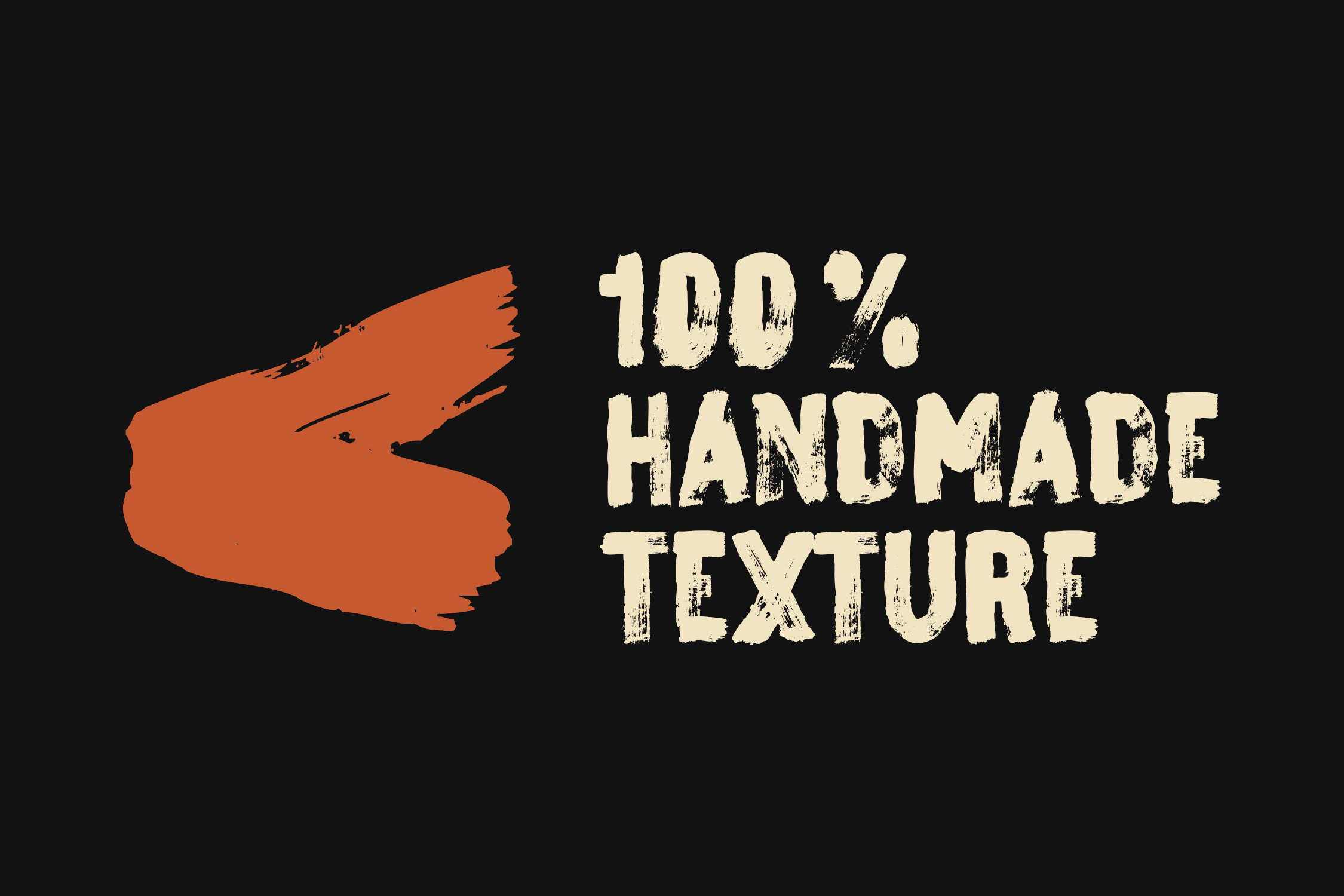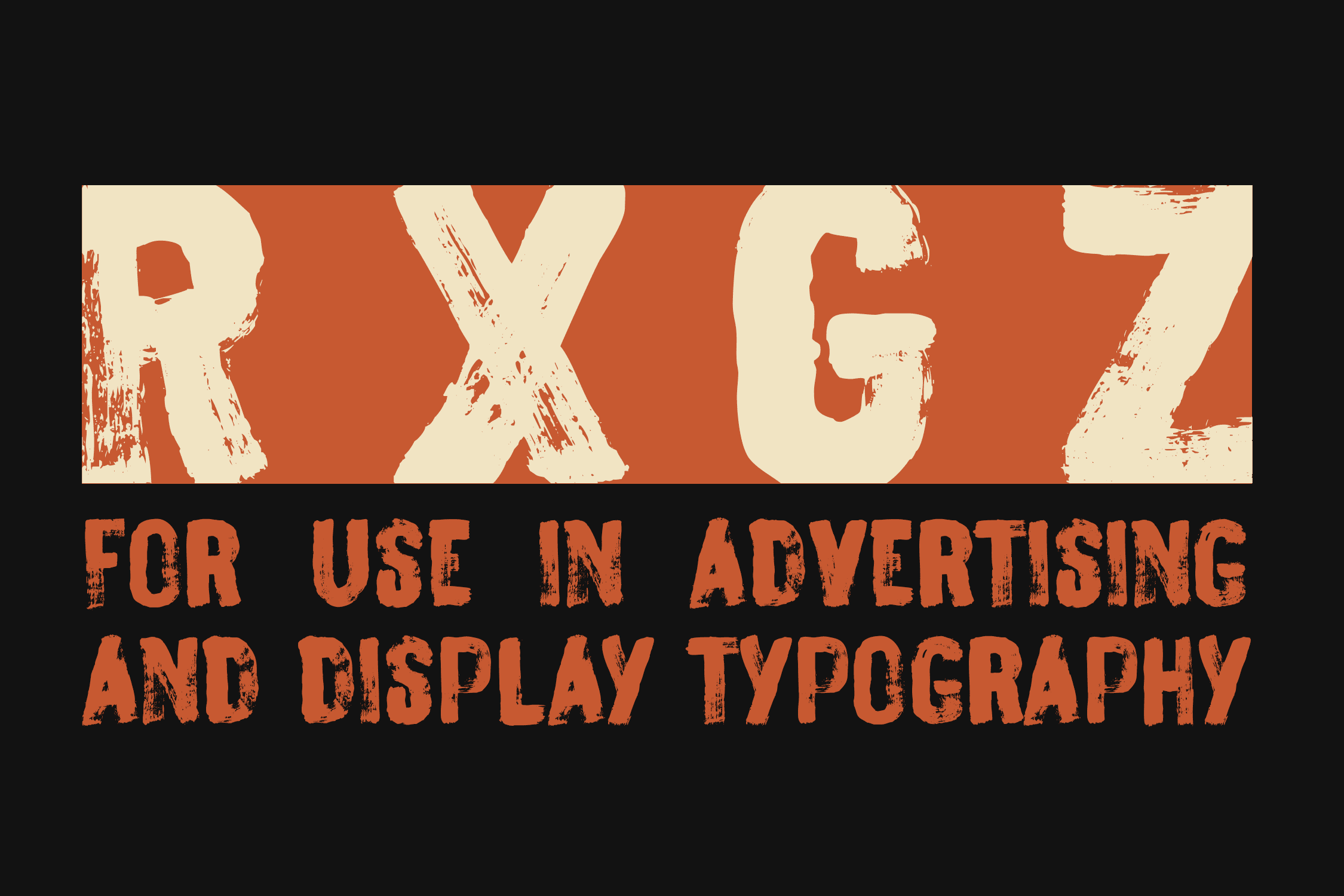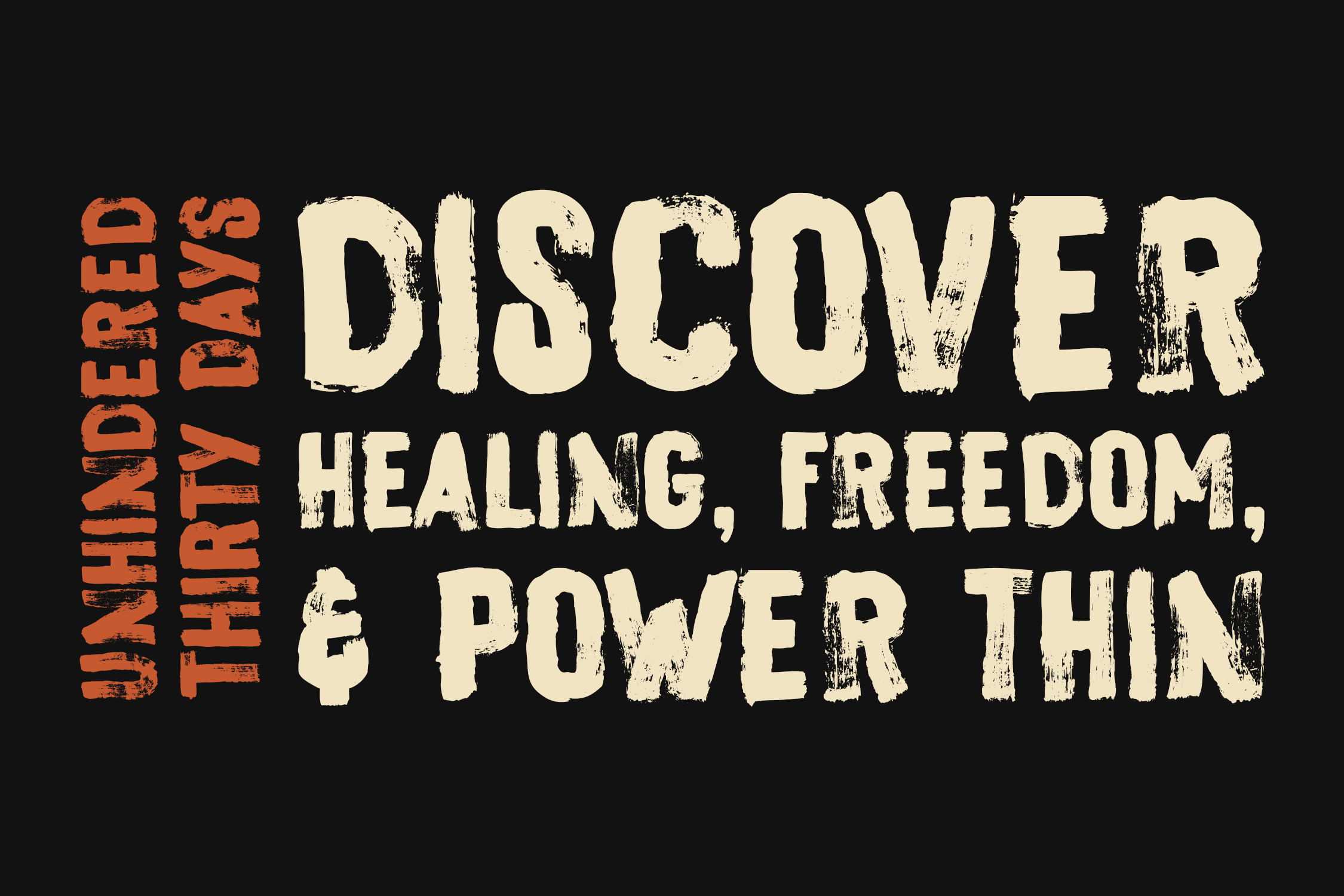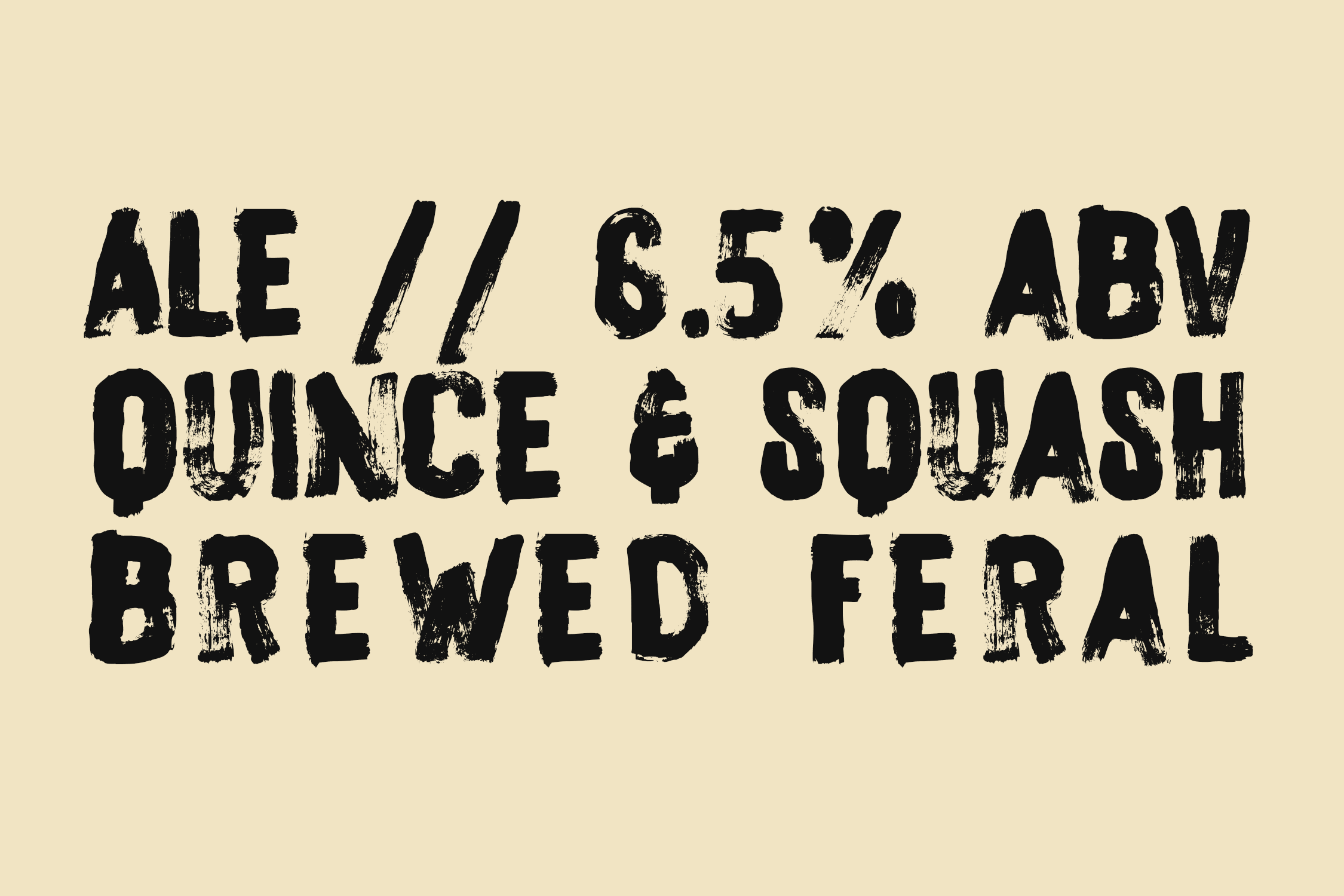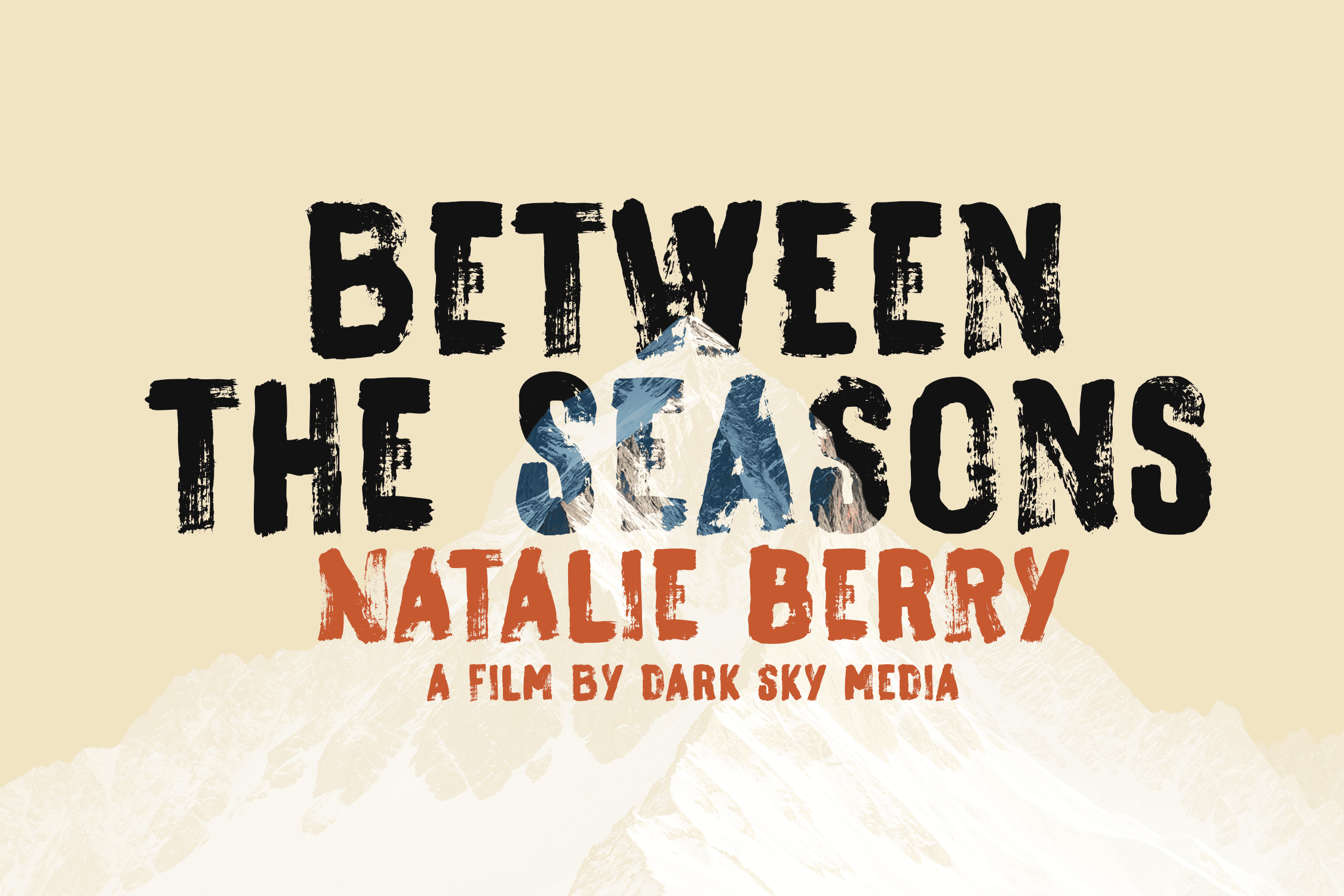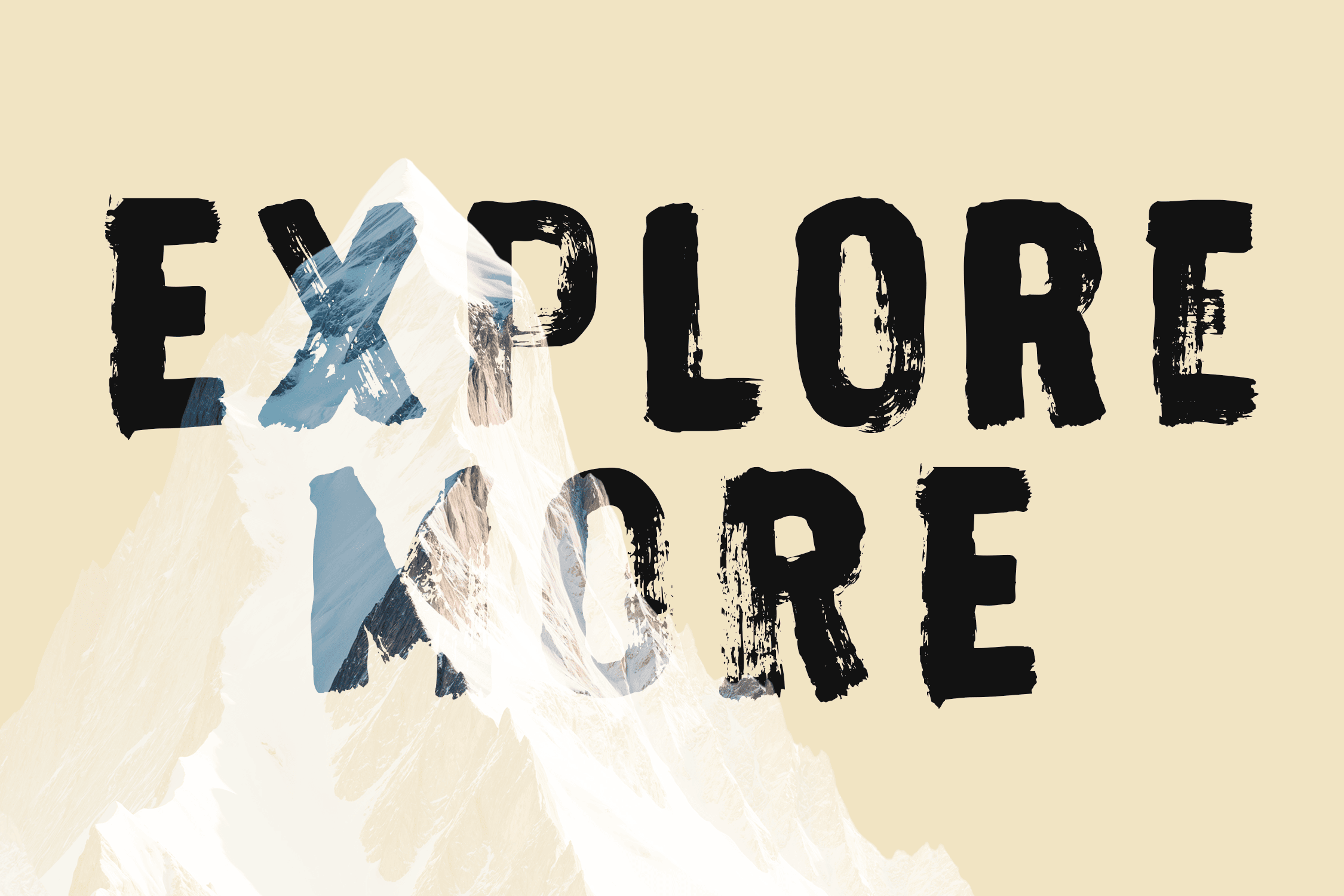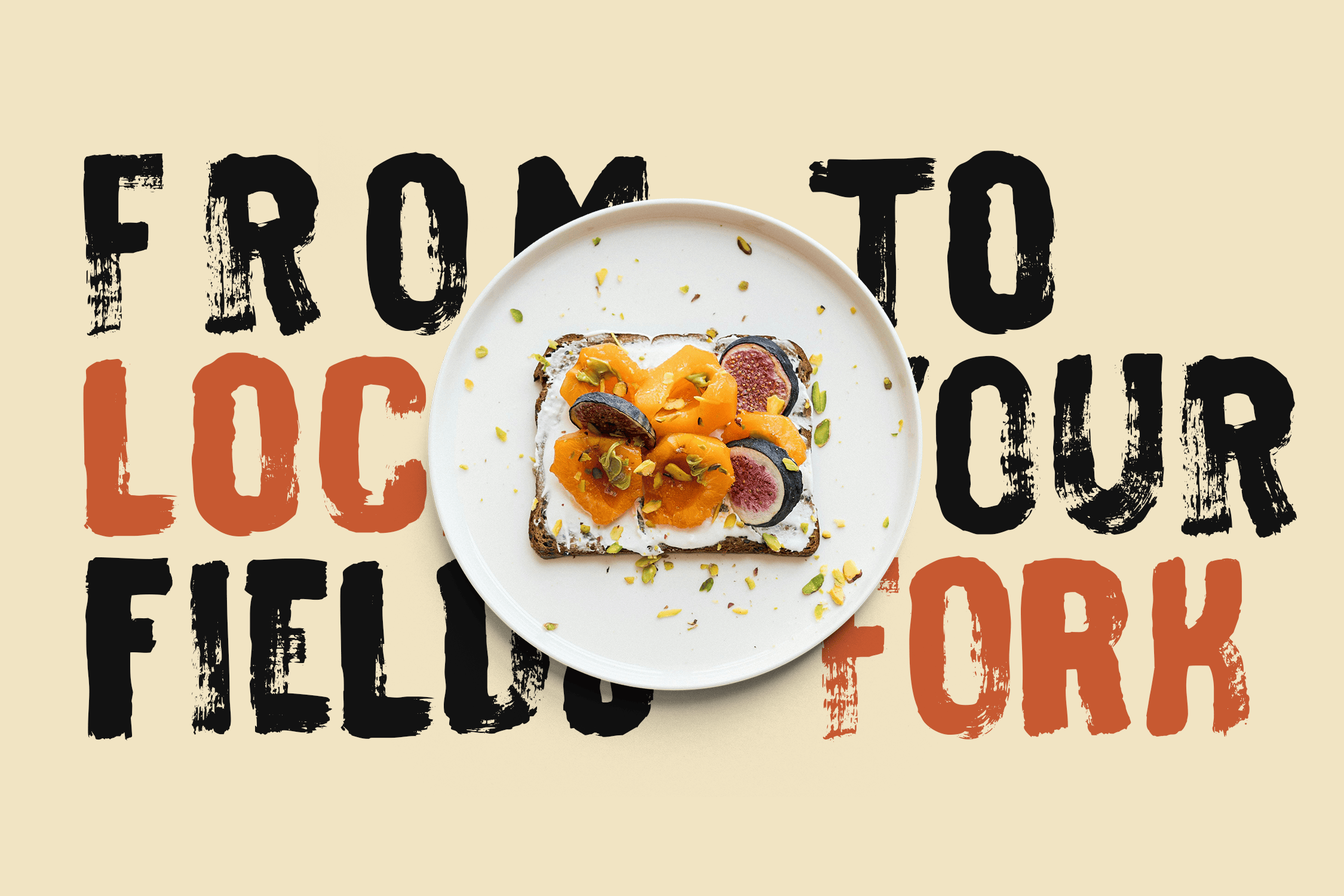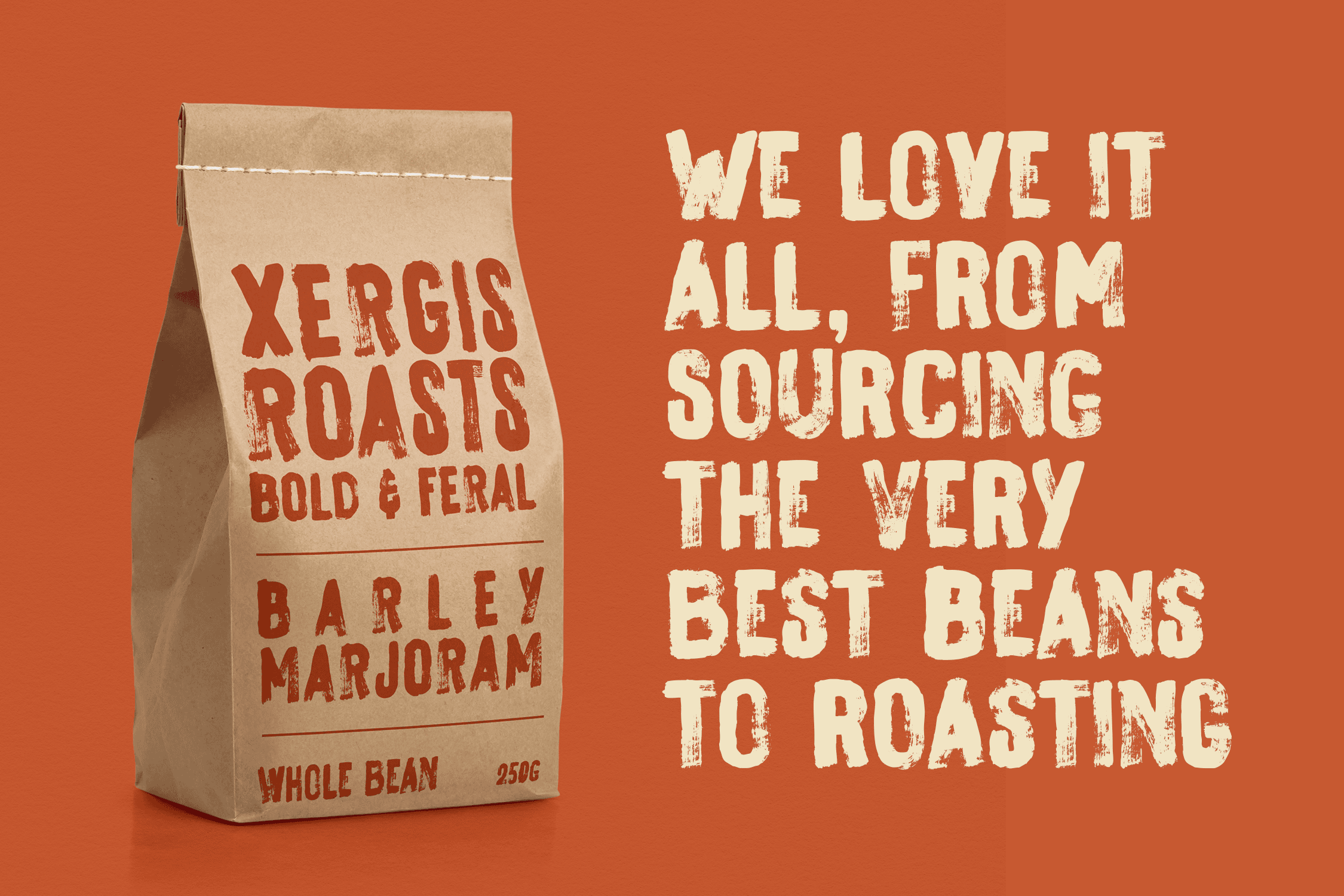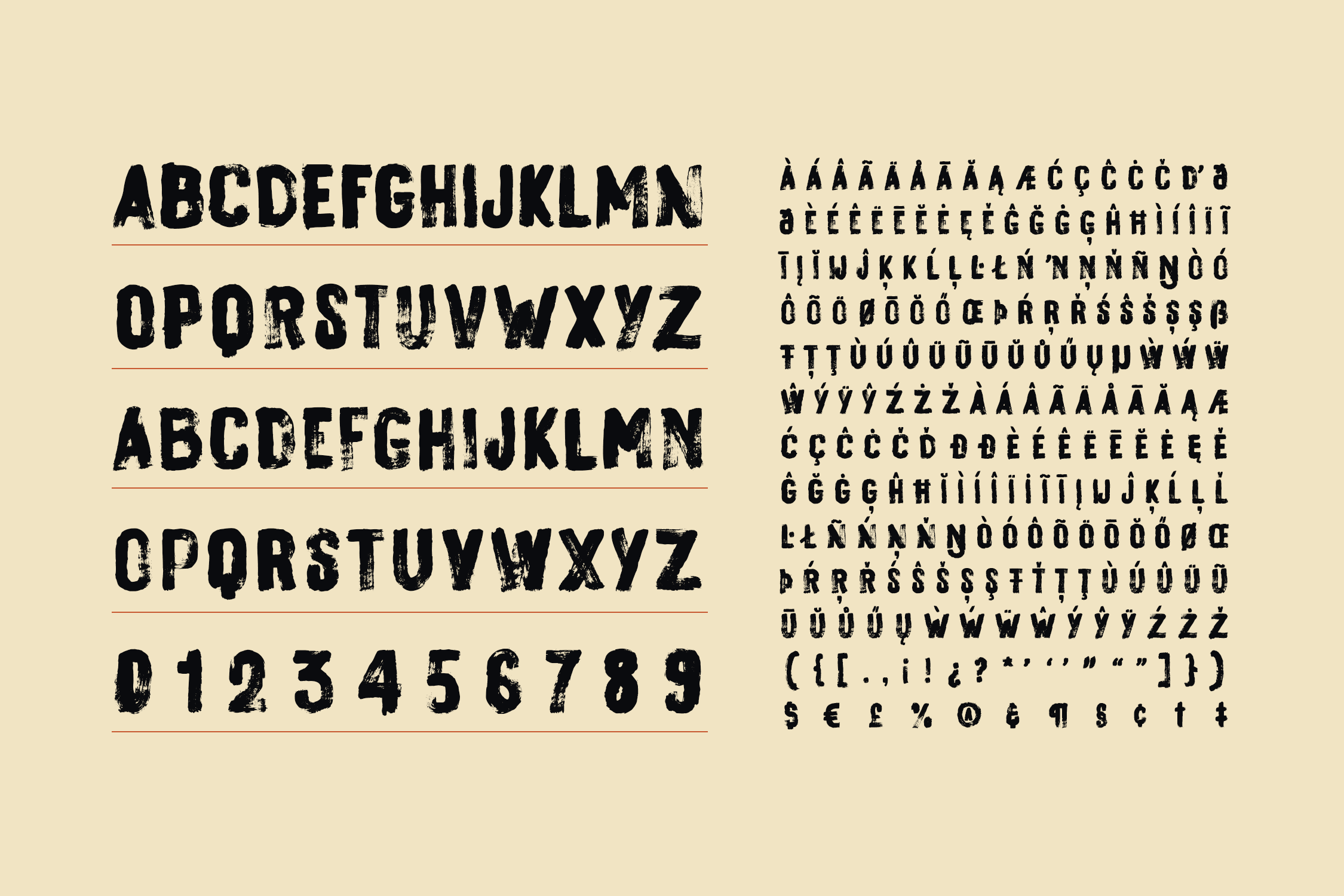
Unleash pure, unfiltered energy into your designs with FERAL GLYPH, a bold and fiercely textured display font meticulously handcrafted using real ink and brush strokes. If you are looking to break away from clean, sterile digital lines and embrace an authentic, raw, and edgy aesthetic, this typeface is built for you.
Every character captures the natural imperfections of dry brush streaks and heavy ink bleeding, giving your typography a tangible, high-impact presence. It is the perfect choice for projects that demand attitude, power, and a distinctive indie or underground vibe.
Perfect for a Wide Range of Creative Projects:
• Edgy & Indie Branding: Stand out in craft beer labels, artisan coffee bags, and food packaging.
• Music & Entertainment: Ideal for rock/punk album covers, band merch, festival posters, and vinyl sleeves.
• Apparel Design: Create powerful statement graphics for streetwear, skateboards, and caps.
• Experimental Layouts: Bring a dystopian, cyber-brutalist, or cinematic feel to book covers, editorial headlines, and experimental web/UI design.
• Full Character Set (Uppercase, Lowercase, Numbers, and Punctuation)
• Extensive Multilingual Support (Accented characters for global design reach)
• Natural Ink Textures embedded into the vector outlines